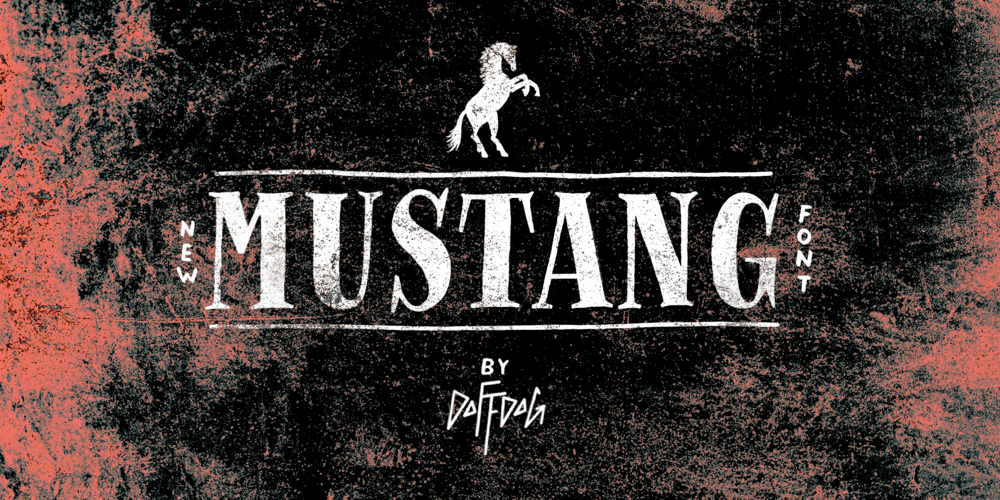
Mustang DD
Mustang DD font
Mustang DD Font Family was designed by Alexey Potapov and published by Doffdog. Mustang DD contains 1 styles and family package options. Mustang is a vintage handmade all caps font. It is perfect for: logos, posters, labels, headlines, apparel & more. It comes with characters, numbers, marks and punctuation.Enjoy!